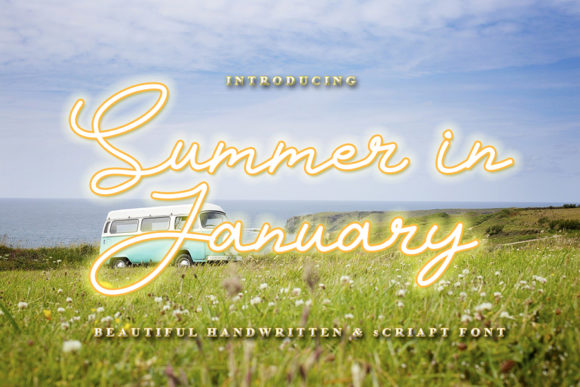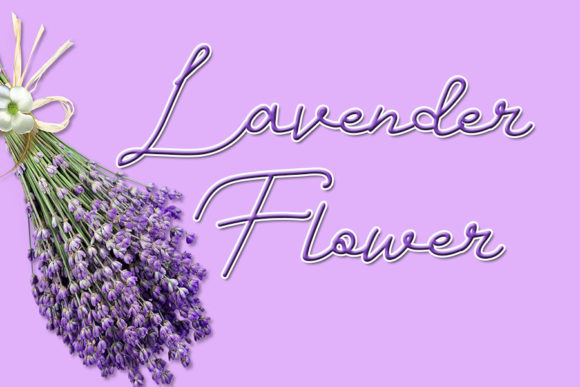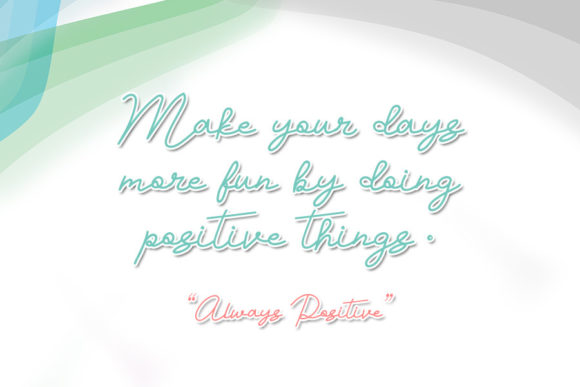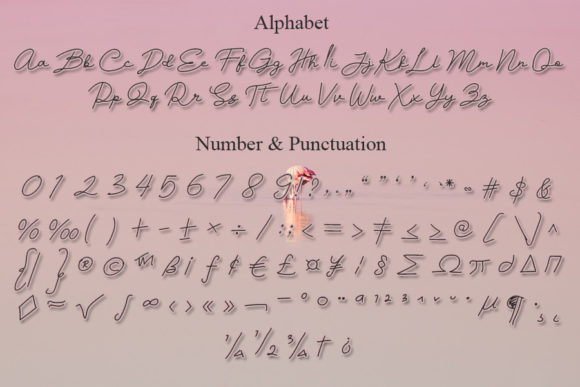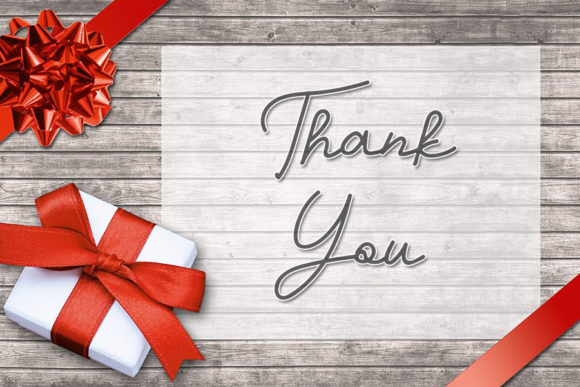
About Summer in January Font
Summer in January is a lovely and timeless handwritten font. It is the best choice for creating eye catching logos, branding and quotes. Every letter has a unique and beautiful touch, which will make your design come alive!